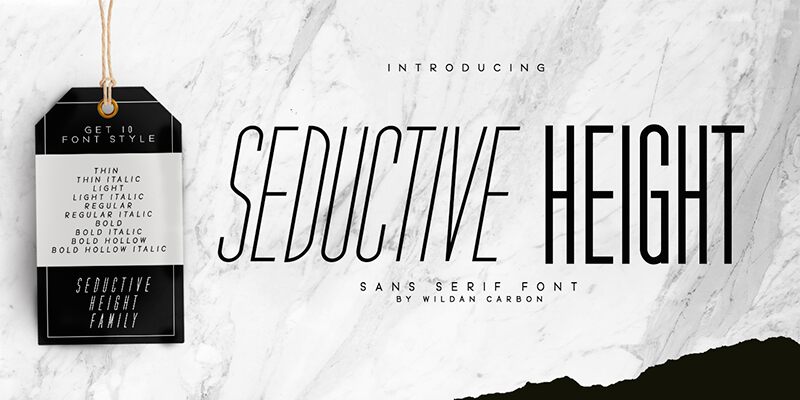
Seductive Height (Demo) Bold
Seductive Height Bold is a captivating sans serif font designed by Wildan Suprian Syah. Its ultra-condensed width and light weight make it perfect for creating sleek and modern designs that demand attention. This font is well-suited for graphic design projects such as logos, posters, and advertisements where you want to make an impact with bold typography. The clean lines of Seductive Height Bold also make it a great choice for web design, especially when paired with bright colors or striking imagery. Whether you're designing for print or digital media, this font is sure to add a touch of sophistication to your project.